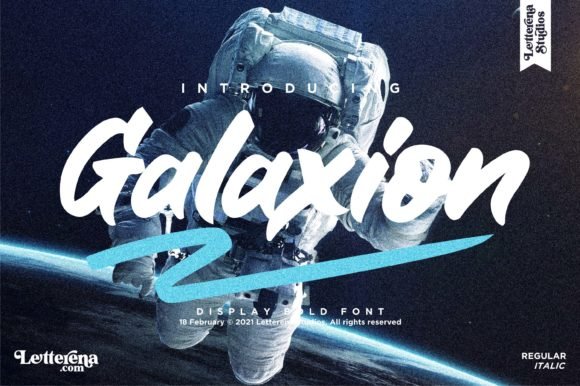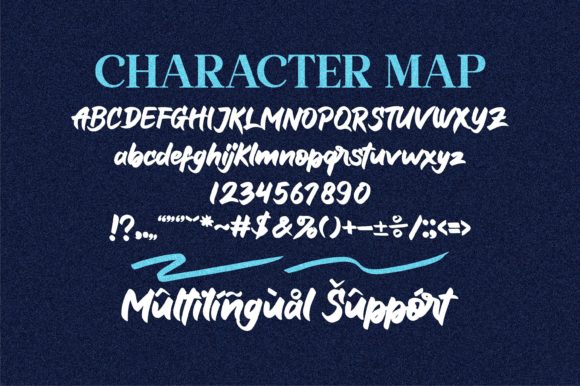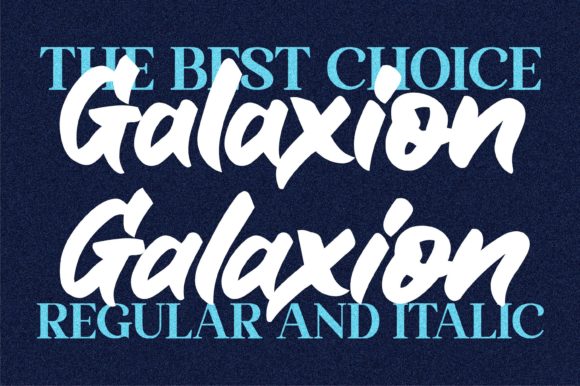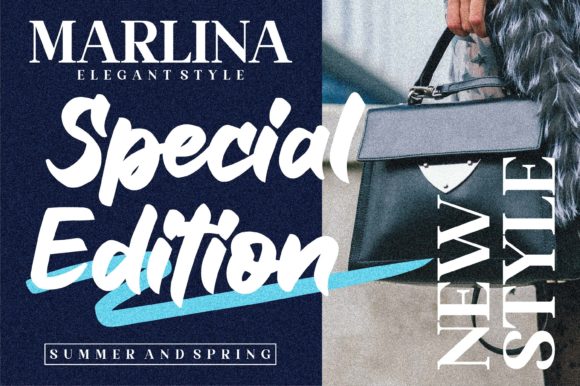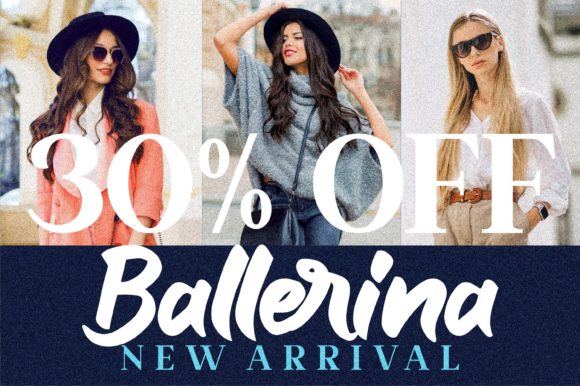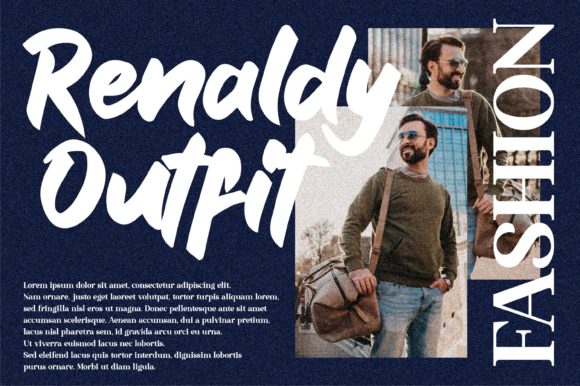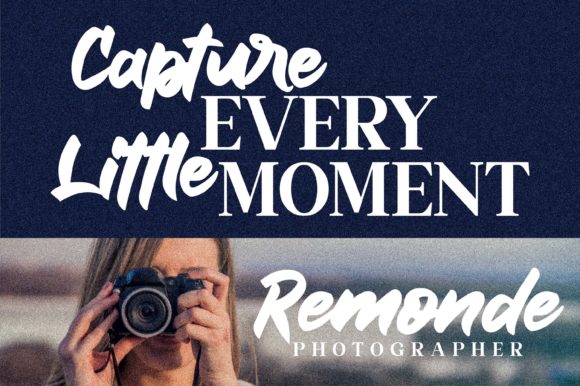
Have you ever found yourself staring at a blank page, trying to think of the perfect font to bring your design to life? The blank stare, the frustrated sigh, the desperate search for the perfect typography – it’s a familiar feeling for many designers. But what if you stumbled upon a font that effortlessly elevates your design, making it a true showstopper?
Enter the Galaxion Font, a unique display font that’s perfect for any creative project. Whether you’re crafting a custom invitation, designing a digital presentation, or making a greeting card, this font is sure to add a touch of magic to your work. Its versatility and style make it an invaluable asset for designers, allowing you to create spectacular designs that truly stand out.
Galaxion Font Key Features
- Font Family: Galaxion Font is available in 8 different font styles, each with its unique characteristics and features.
- Unique Characteristics: Galaxion Font features a futuristic and cosmic design theme, with unique characters and glyphs that set it apart from other fonts.
Galaxion Font Review
Overall, I have mixed feelings about the Galaxion Font. While it has some great features, there are also some areas where it falls short. Let’s dive in and explore both the good and the bad.
- Cosmic Vibes: The font has a unique, otherworldly feel to it that’s perfect for science fiction or futuristic projects.
- High Contrast: The bold lines and high contrast between light and dark areas make it easy to read, even at small font sizes.
- Customizable: The font comes with a range of customization options, allowing you to adjust the size, color, and style to suit your needs.
- Limited Legibility: While the font is great for headings and titles, it can be a bit difficult to read in large blocks of text.
- Lack of Consistency: Some characters, such as the lowercase “a” and “e”, can look a bit inconsistent in certain font sizes.
- Not Ideal for Body Text: The font is best used for headings, titles, and other short blocks of text. It’s not the best choice for large blocks of body text.
Overall, I think the Galaxion Font is a solid choice for designers who want to add a touch of futurism to their projects. While it’s not perfect, its unique style and high contrast make it a great option for headings and titles. However, it may not be the best choice for large blocks of text or projects that require a more traditional font.
Galaxion Font is ideal for:
- Futuristic and sci-fi themed designs
- High-contrast designs
- Creating a bold and futuristic visual identity